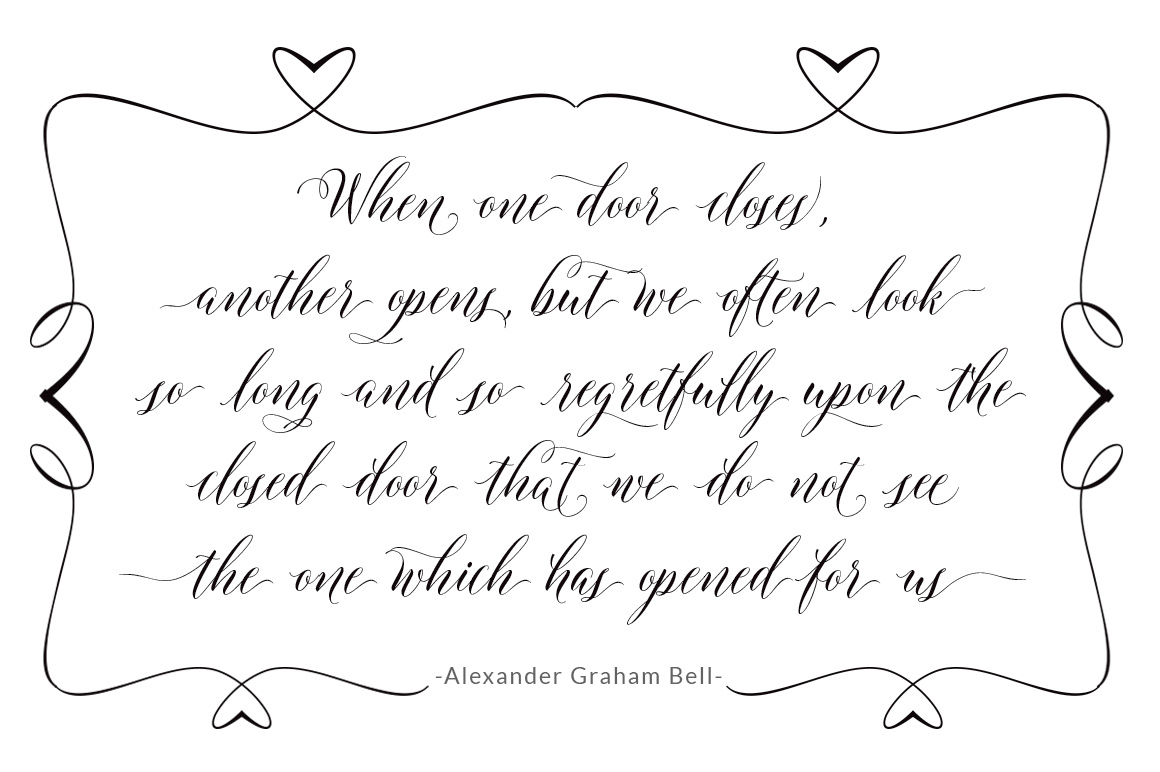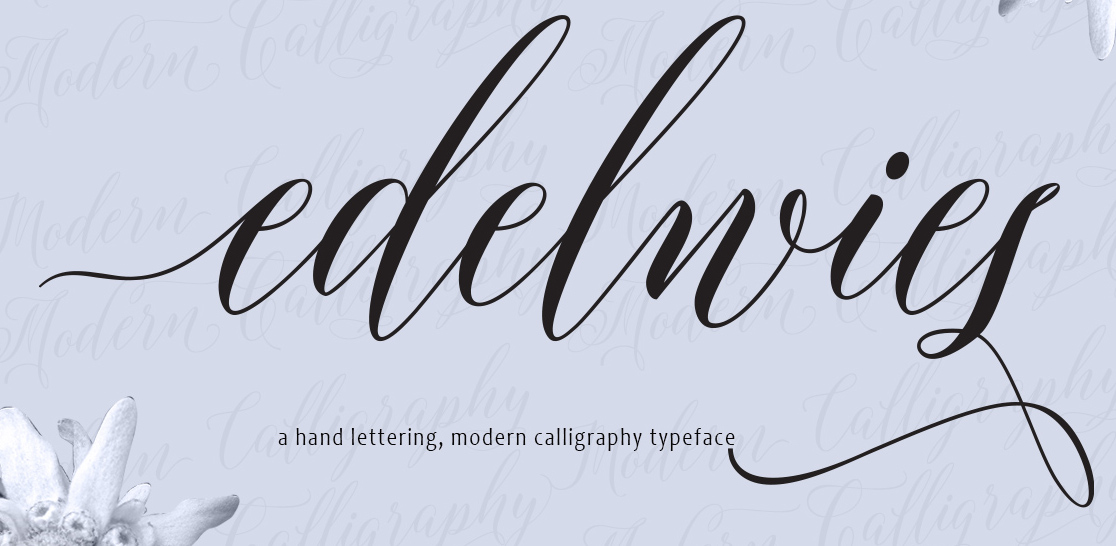
Joel Maker
BandaAceh, Indonesia-based designer of the calligraphic script typefaces Amigirl (2015, script and sans), Monkuta Script (2015) and Bruselo (2015), and the swashy script typefaces Mastura (2015), Hefalo (2015, brush style), Edelwies Script (2015), Brigent Script (2015), Cherryla (2015), Amellia Script (2015), Bella Script (2015), and Novelia (2015). Behance link.